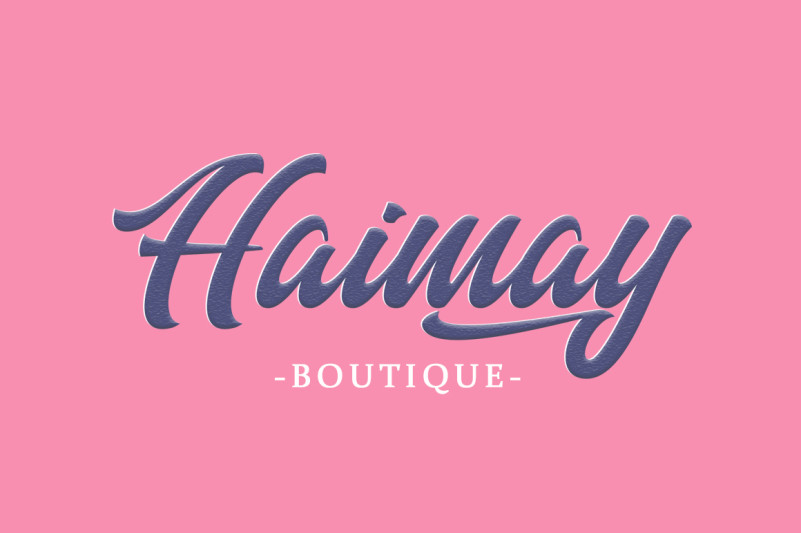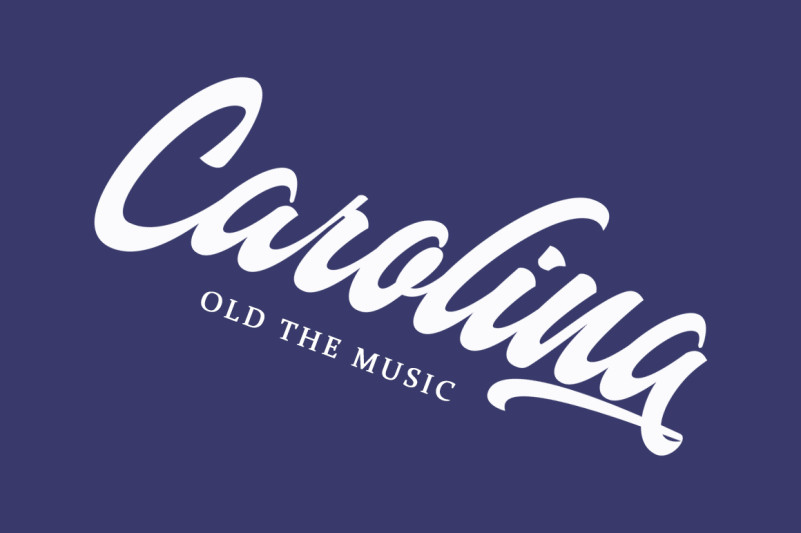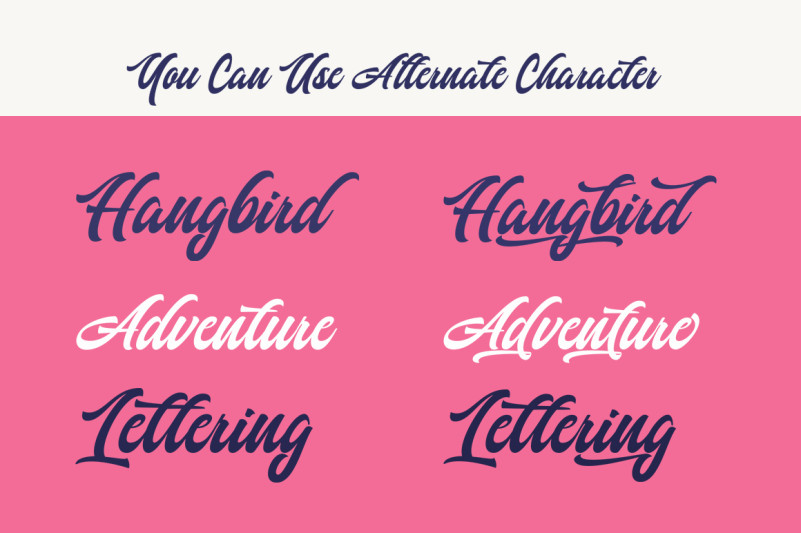
Authem Script Font is a cool and fun script font with a bold style. It will add a vintage look to any crafting idea! Ideal for logos, handwritten quotes, product packaging, header, poster, merchandise, social media & greeting cards.